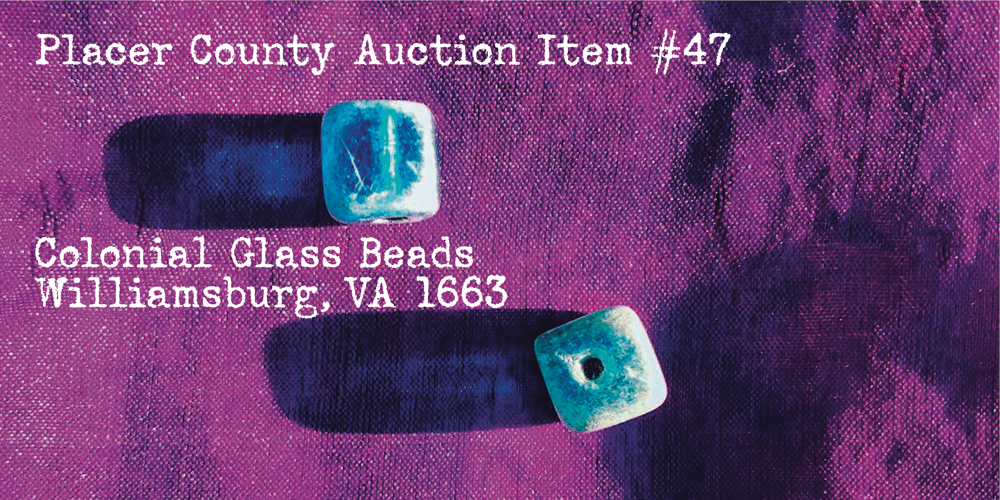
Telepath Font Family was designed by Joseph Coniglio and published by Coniglio Type. Telepath contains 1 styles and family package options. TELEPATHTelepath by Coniglio Type, first appeared in 1998. It is now in opentype .otf as of 2021. Telepath is a master sampling of a Royal office typewriter of industrial strength provided by the Miller Furniture store, of Dunkirk, New York. It had a baseline set of numbers to make accounting practices easy and line up nicely on the statements. (No gentile old fashioned numerical ascenders and descenders.) Yet, for a a rather old and stolid machine, it was very luxurious and built to definitely take the test of time. Cudo’s for Royal Typewriter Company, is all I can say. The set of images were very carefully gathered and has fallen into the preferred category for a typewriter font that has it all. The font has exceptional value as a text font -and- a display font. It contains a great deal of graphic information and doesn’t spike at higher sizes.Telepath presents a strikingly handsome typewriter font with a uniquely intuitive difference. Unlike the original source material—scans of monospaced typewriter copy, every font is painstakingly hand kerned for your most demanding copy fitting work in justified or casually ragged settings for print or the web. All Coniglio Type fonts are 100% embeddable. It will get you there.